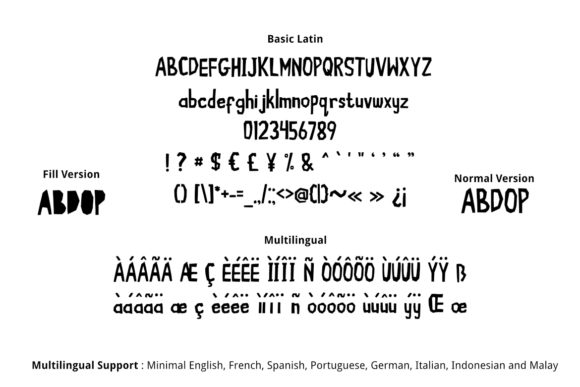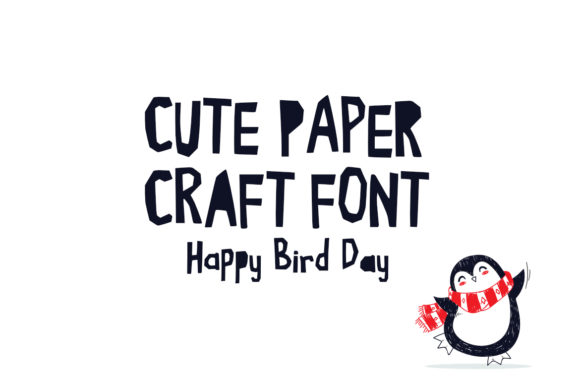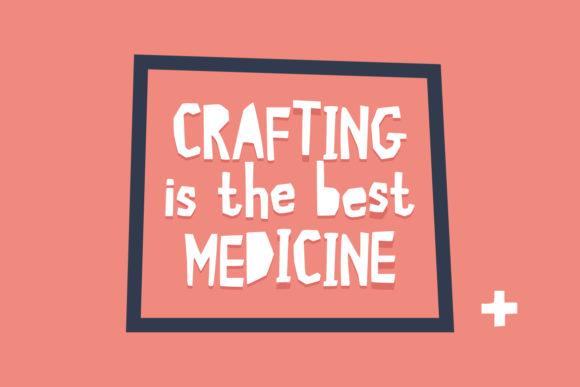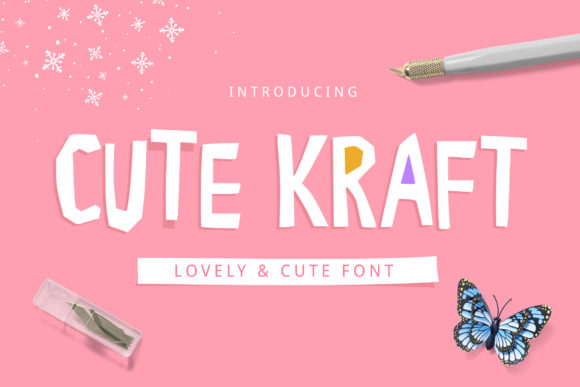
Cute Kraft Font: Add a Playful Touch to Your Designs
Are you looking for a font that can instantly elevate your design projects with a playful and charming vibe? Look no further than Cute Kraft Font! This artistic and lovely display font is perfect for designers and crafters who want to add a modern twist to their creations.
What is Cute Kraft Font?
Cute Kraft Font is a unique and creative typeface that is designed to bring a touch of whimsy and fun to any design project. Its modern twist makes it perfect for a wide range of applications, from branding and advertising to packaging and crafting. The font’s playful and charming vibe is sure to capture the attention of your audience and leave a lasting impression.
Key Features of Cute Kraft Font
- Artistic and Lovely Design: Cute Kraft Font features an artistic and lovely design that is sure to add a touch of elegance and sophistication to any design project.
- Modern Twist: The font’s modern twist makes it perfect for designers and crafters who want to create modern and trendy designs.
- Playful and Charming Vibe: Cute Kraft Font has a playful and charming vibe that is sure to capture the attention of your audience and leave a lasting impression.
- Easy to Read: Despite its playful design, Cute Kraft Font is easy to read and understand, making it perfect for use in a wide range of applications.
Uses of Cute Kraft Font
Cute Kraft Font is a versatile typeface that can be used in a wide range of applications, including:
- Branding and Advertising: Use Cute Kraft Font to create eye-catching logos, posters, and advertisements that will capture the attention of your audience.
- Packaging Design: Add a playful and charming touch to your packaging designs with Cute Kraft Font.
- Crafting and DIY Projects: Cute Kraft Font is perfect for crafters and DIY enthusiasts who want to add a personal touch to their projects.
- Digital Design: Use Cute Kraft Font in your digital designs, such as social media graphics, blog posts, and website headers.
Benefits of Using Cute Kraft Font
Using Cute Kraft Font in your design projects offers a range of benefits, including:
- Increased Engagement: The playful and charming vibe of Cute Kraft Font is sure to capture the attention of your audience and increase engagement.
- Unique and Creative Designs: Cute Kraft Font allows you to create unique and creative designs that will set you apart from others.
- Versatile: Cute Kraft Font can be used in a wide range of applications, making it a versatile addition to your design toolkit.
Tips for Using Cute Kraft Font
Here are some tips for using Cute Kraft Font in your design projects:
- Use it Sparingly: Cute Kraft Font is a display font, so use it sparingly to add emphasis and create visual interest.
- Pair it with Other Fonts: Pair Cute Kraft Font with other fonts to create a unique and creative design.
- Experiment with Colors: Experiment with different colors to find the perfect combination that works with Cute Kraft Font.
Cute Kraft Font is a unique and creative typeface that is perfect for designers and crafters who want to add a playful and charming vibe to their design projects. With its artistic and lovely design, modern twist, and easy-to-read features, Cute Kraft Font is sure to capture the attention of your audience and leave a lasting impression. Whether you’re creating branding and advertising materials, packaging designs, or crafting and DIY projects, Cute Kraft Font is a versatile and valuable addition to your design toolkit.